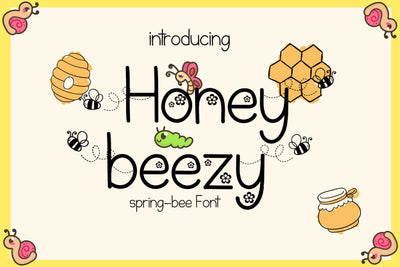
Honey Beezy - Spring Bee Font
Introducing, Honey Beezy - Spring Bee Font!
This is a cute, sweet and childish font with spring and bee theme. It has some alternated glyphs to make your design more beautiful!
Great for any spring-related design or children stuffs, cards, branding, scrapbooks, social media posts, advertisements, flyers, souvenirs and many more!
Honey Beezy Features :
- Standard Characters ( Uppercases, lowercases)
- Standard Symbols
- Alternated Fonts ( Flower & Bee )